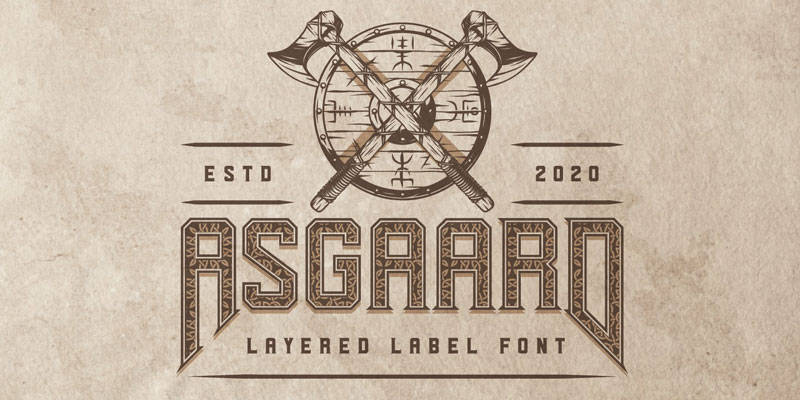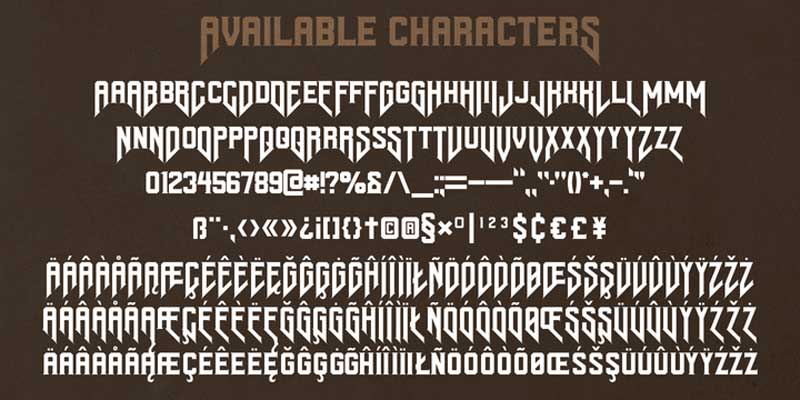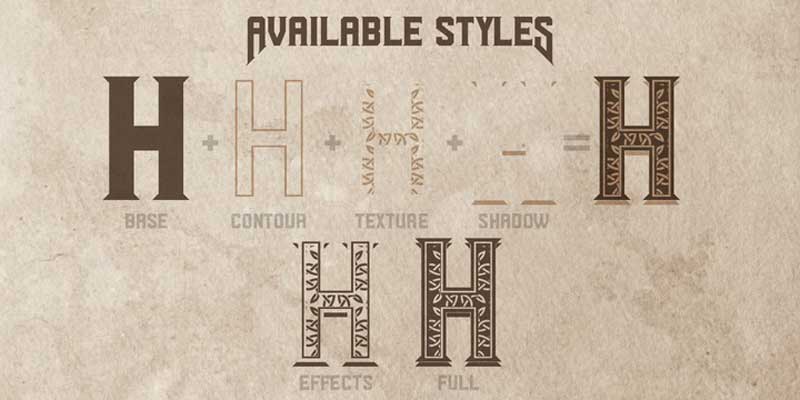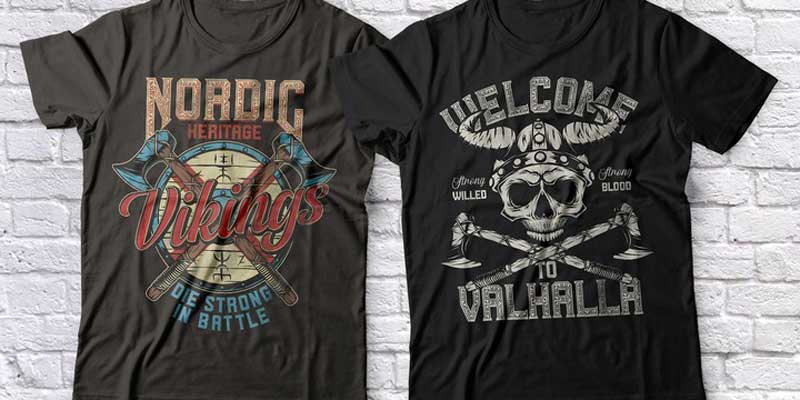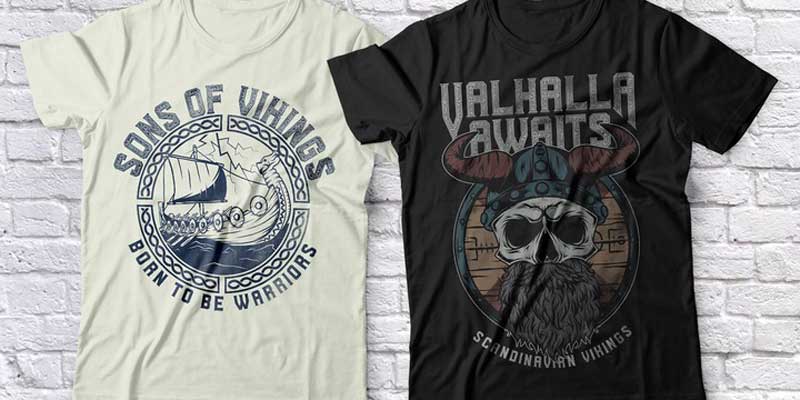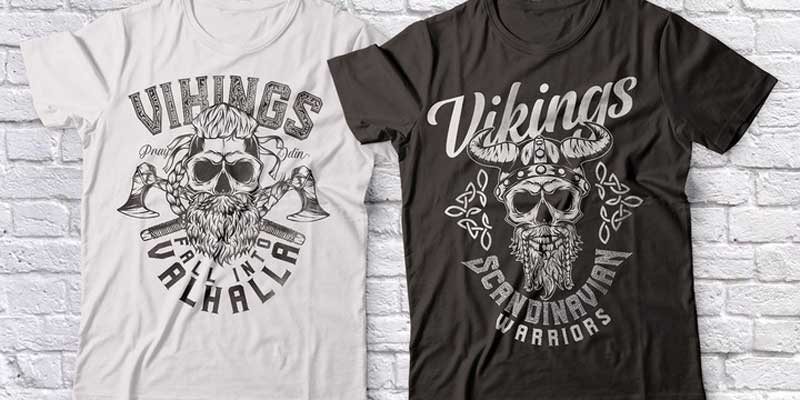
Asgaard Font Family
Introducing a vintage label font named Asgaard. This strong typeface is perfect for lettering on vintage style posters, t-shirts, greeting cards, logos, and more. All capital letters (including multilingual) have alternates. You can see all available characters and styles in the previews.